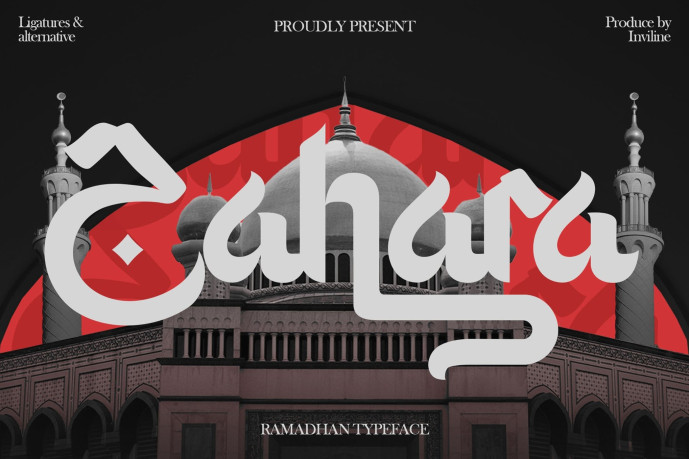
Zahara – Arabic Decorative Font
Zahara – Arabic Decorative Font is an Arabic-inspired decorative font that beautifully merges traditional Middle Eastern elegance with modern typographic design. With bold curves, unique ligatures, and ornamental alternates, Zahara stands out as a striking display font perfect for spiritual themes, Ramadhan promotions, or culturally rich branding projects. The script-like motion and geometric balance bring depth and harmony, ideal for eye-catching headlines and expressive visuals.